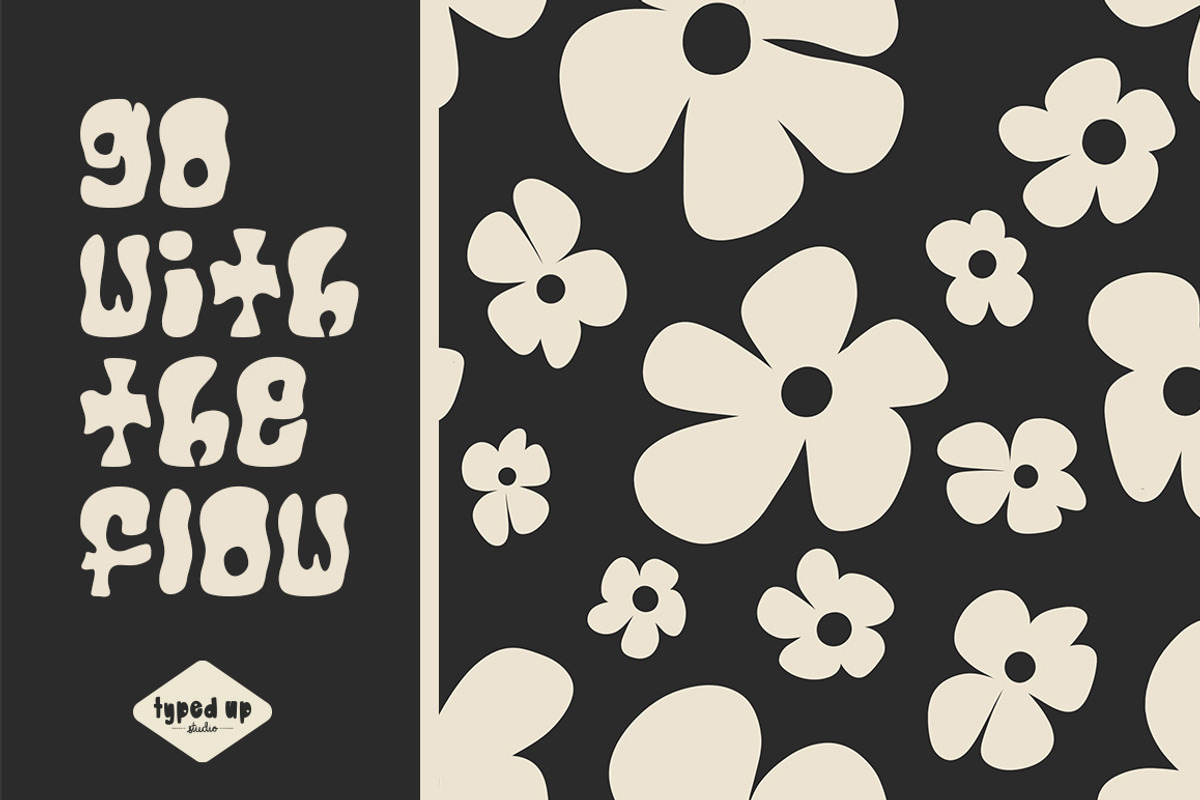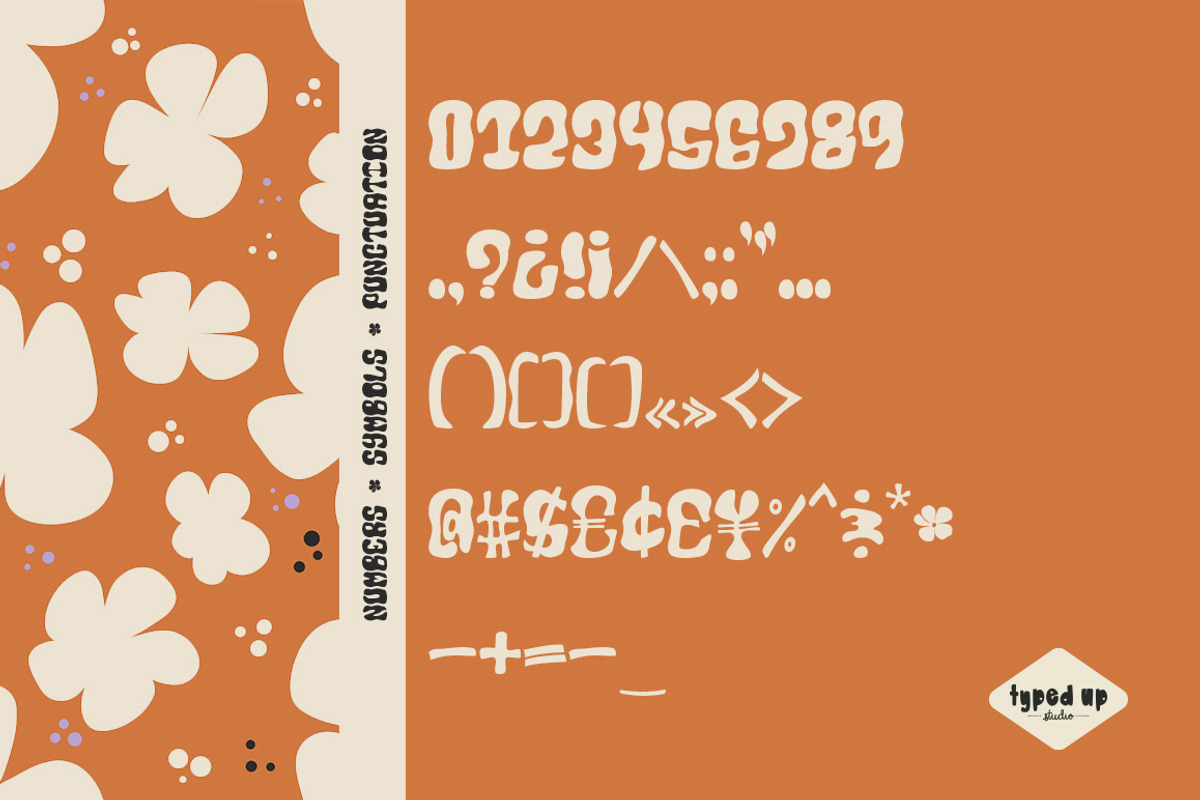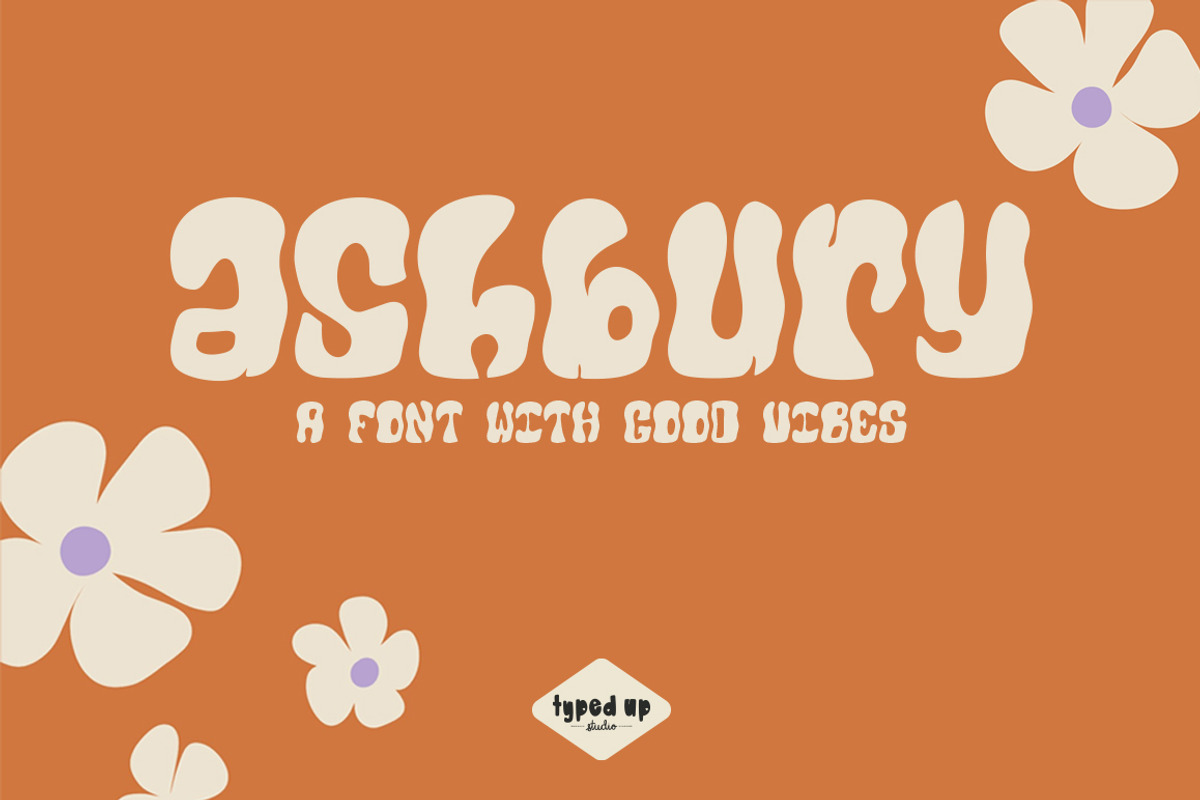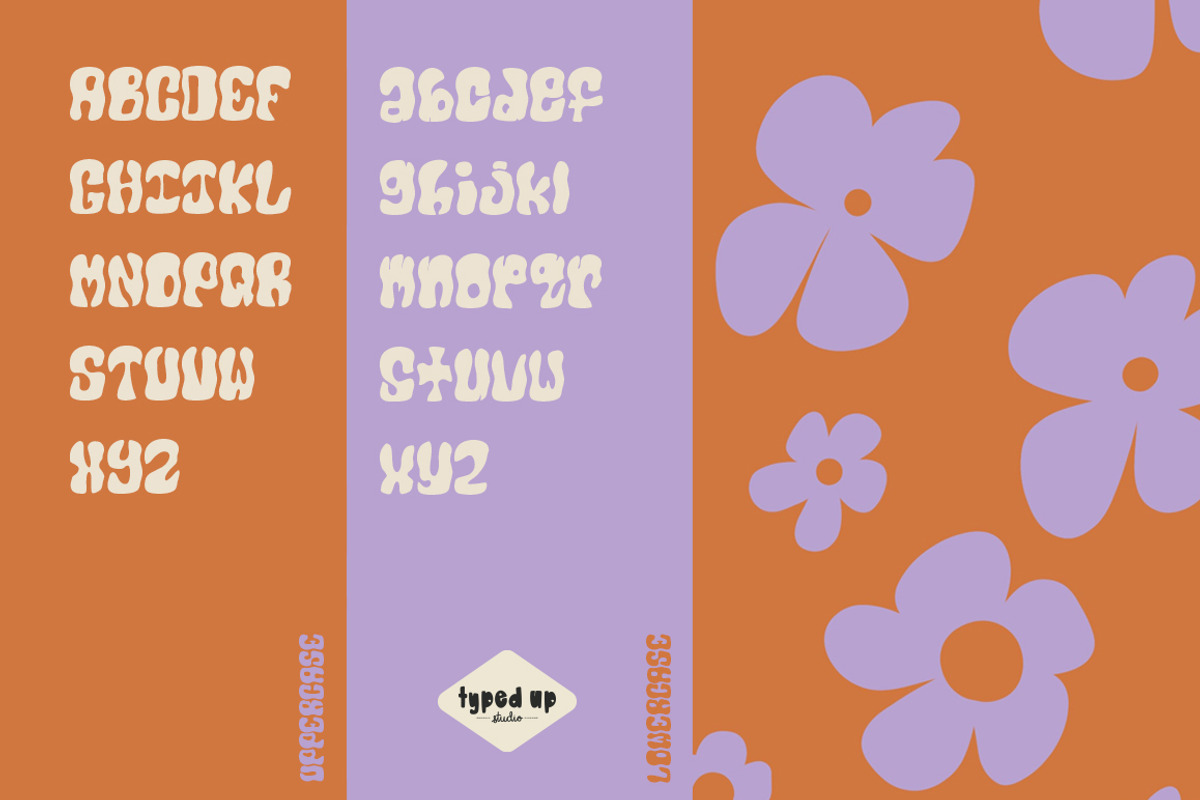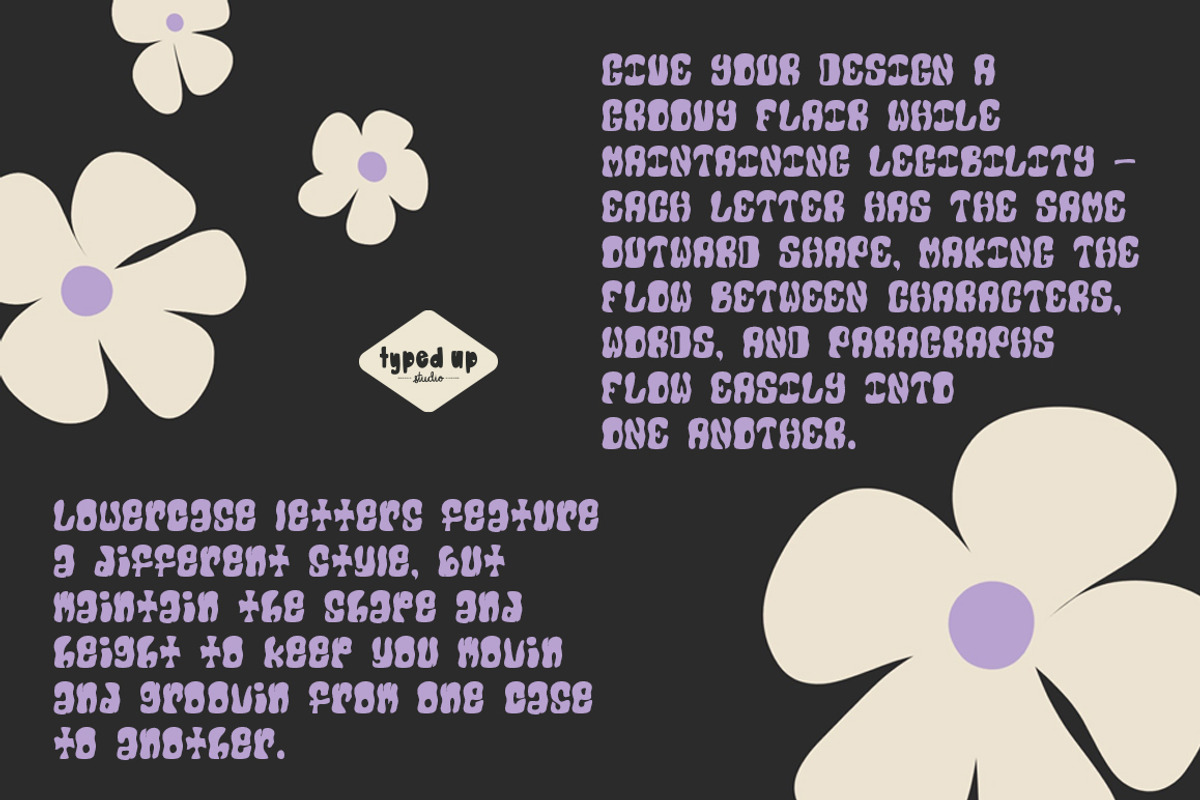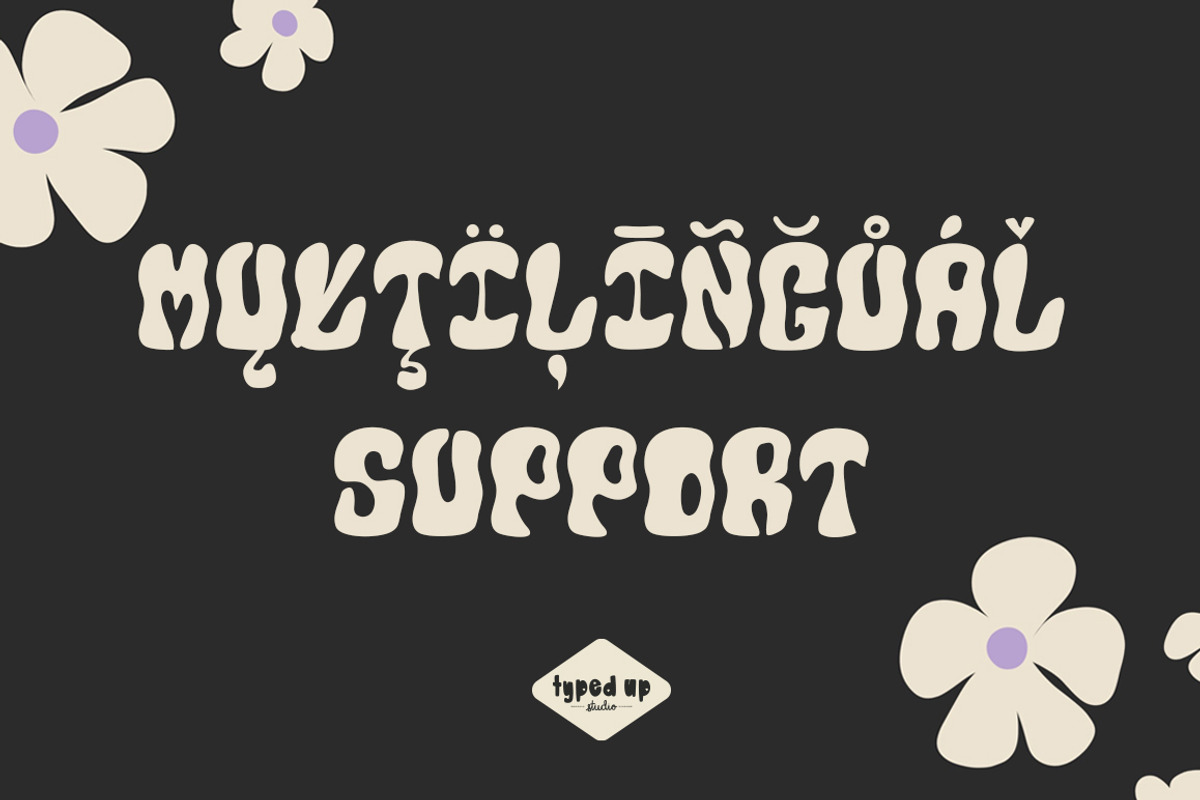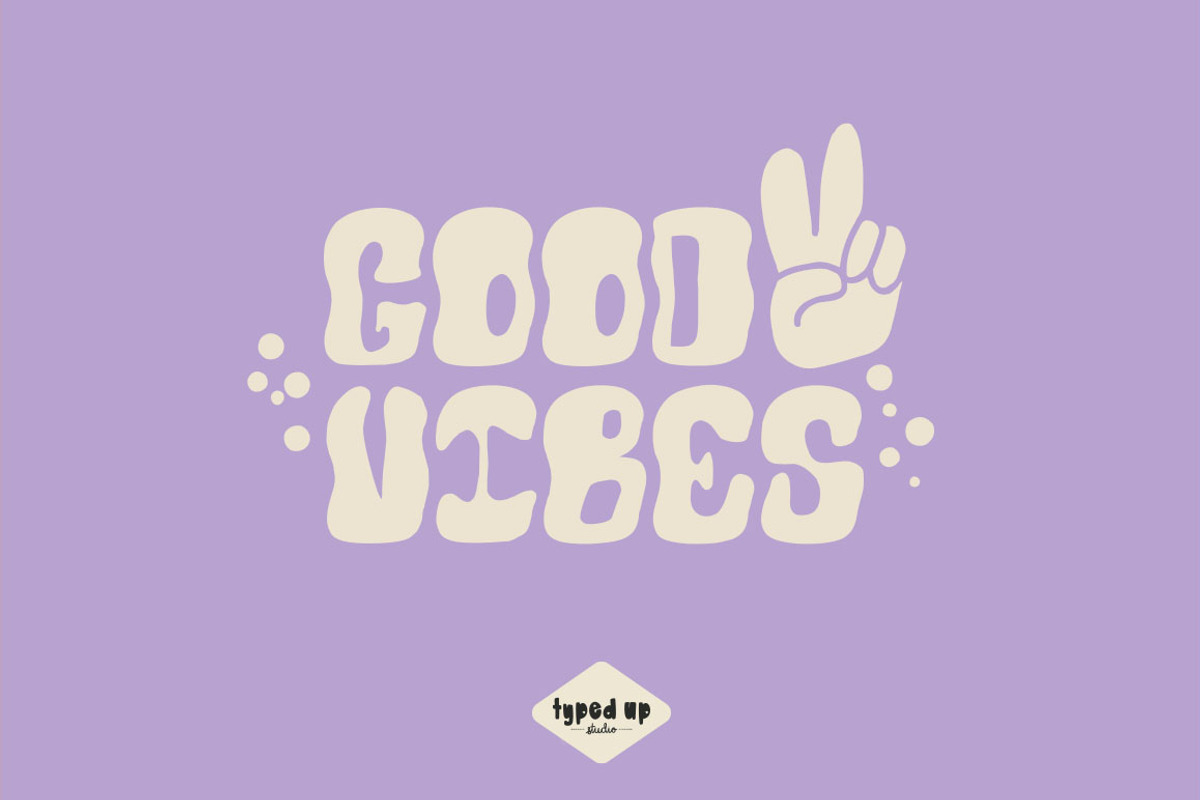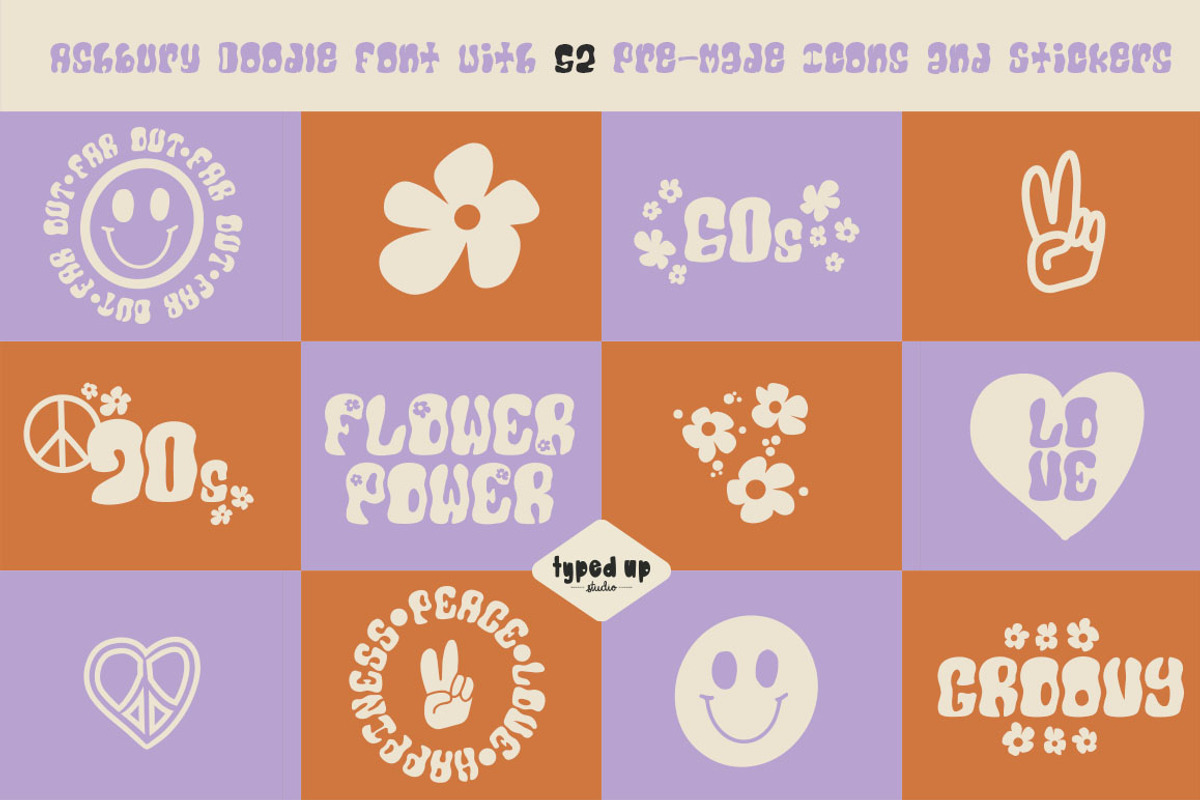
Ashbury | Retro Display Font
Ashbury is here to keep your designs hip and the good vibes flowin' man. Give your design a groovy flair while maintaining legibility - each letter has the same outward shape, making the space between characters, words, and paragraphs flow easily into one another. Lowercase letters feature a different style, but maintain the shape and height to keep you movin' and groovin' from one case to another. Plus! an outline version of the font, Ashbury Outline and a doodle font, Ashbury Doodles, featuring 52 premade icons, sticker designs, and logos that you can type out easily!
Ashbury features language support for many Latin & European languages, but please try out your characters in the test box before purchasing to ensure they are included.